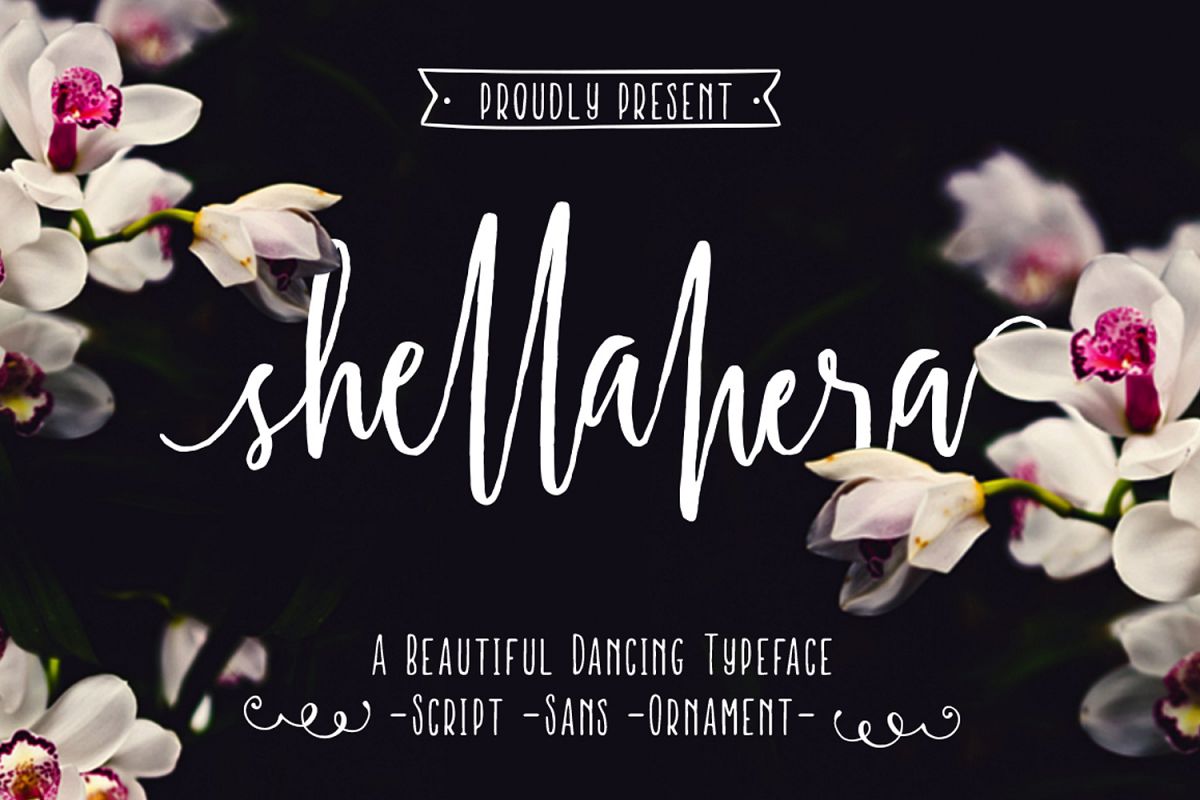
Shellahera Font Bundle
ShellaHera is a handwritten script font family made
using original brush pen and scanned with high resolution make this font
is very personality and yes, it's so beautiful with a dancing baseline.
• ShellaHera Script
• ShellaHera Sans
• ShellaHera Ornament